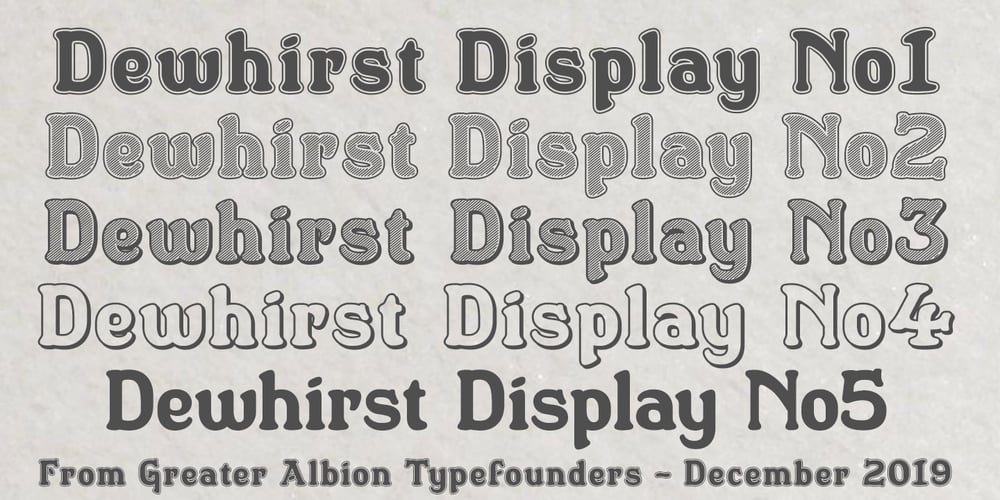
Dewhirst Display Font Family was designed by Paul James Lloyd and published by Greater Albion Typefounders. Dewhirst Display contains 5 styles and family package options. There is a particular charm about traditional, hand executed sign writing. There is also something magical about watching an experienced sign writer at work with his sign writer’s dagger (don’t worry, it’s a specially shaped paintbrush), watching the elegant lettering formed by deft brushstrokes. The Dewhirst family of five decorative faces is inspired by an elegant specimen of just such hand painted sign writing seen while I was out and about one day. Use this family of five faces to add a special touch of flair.